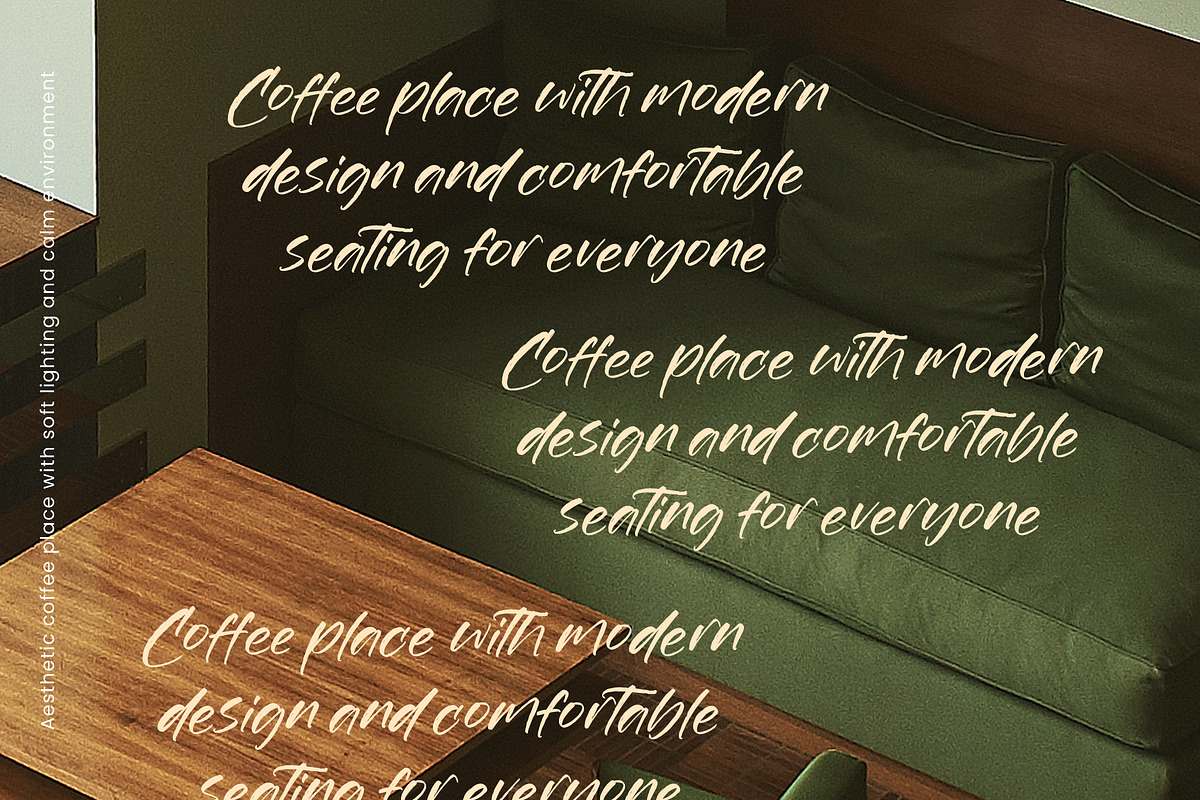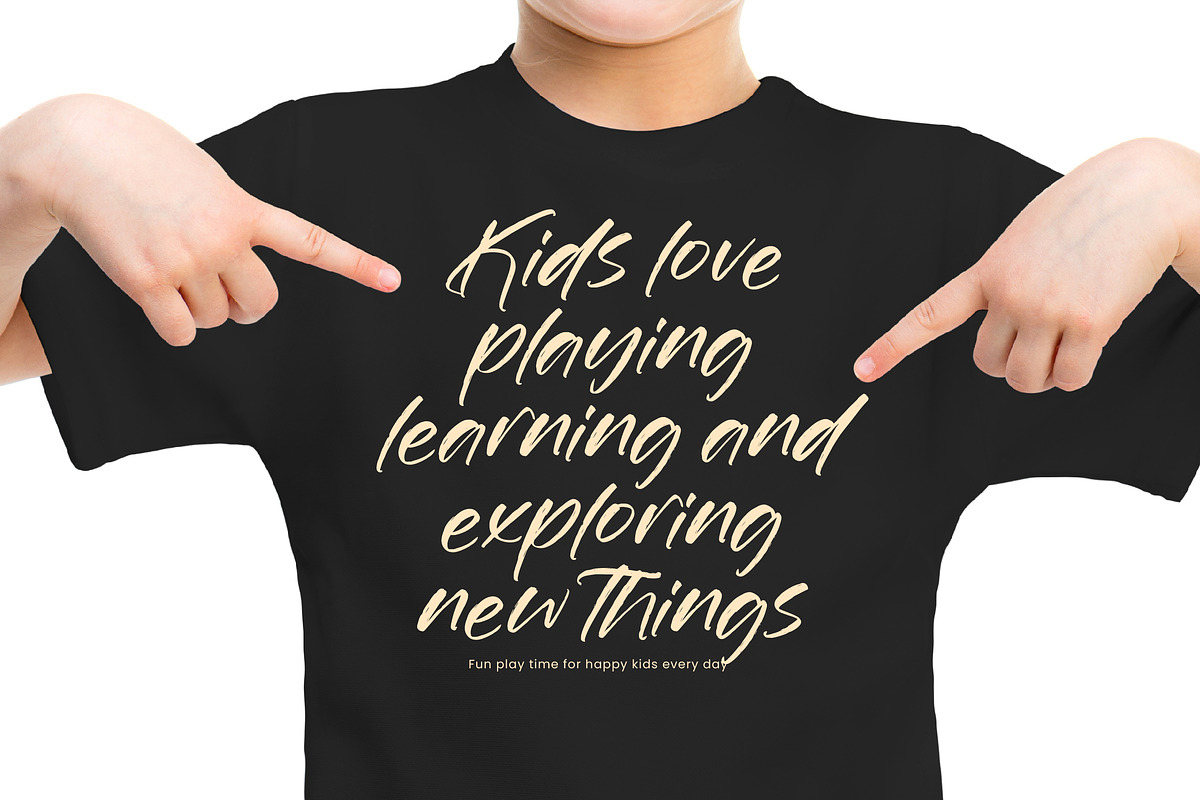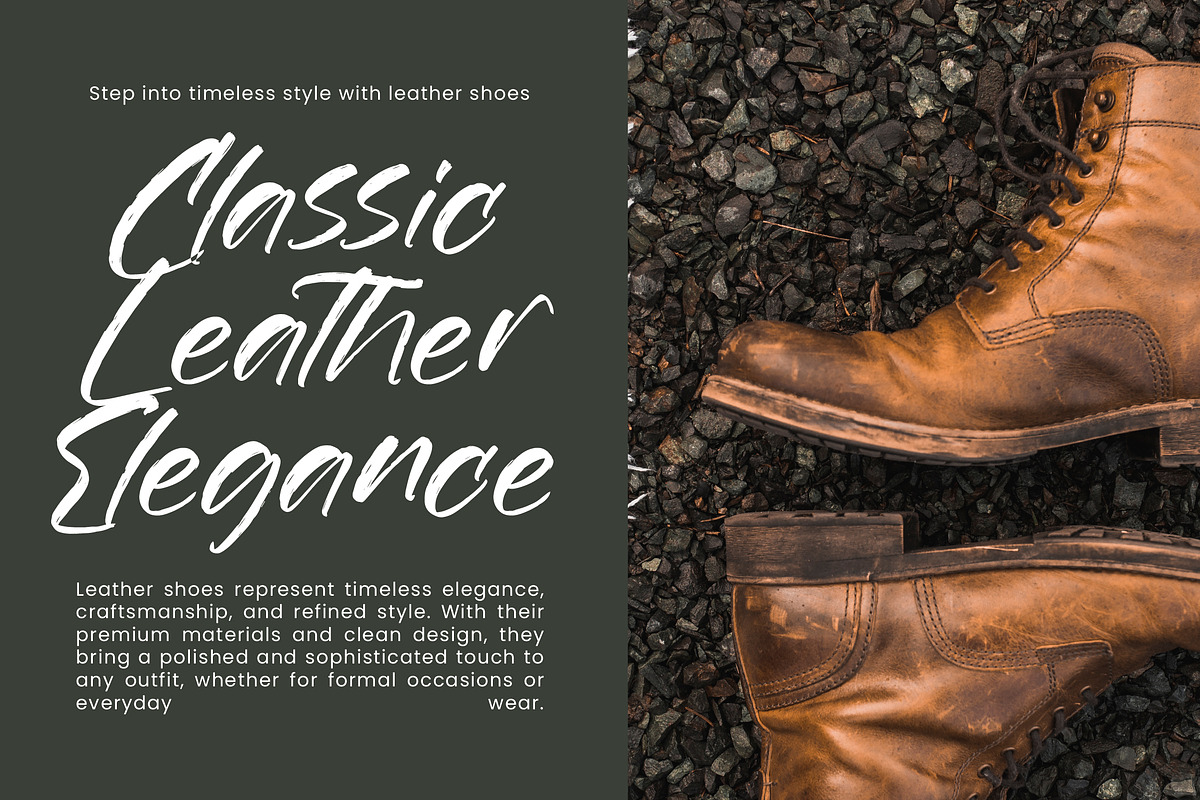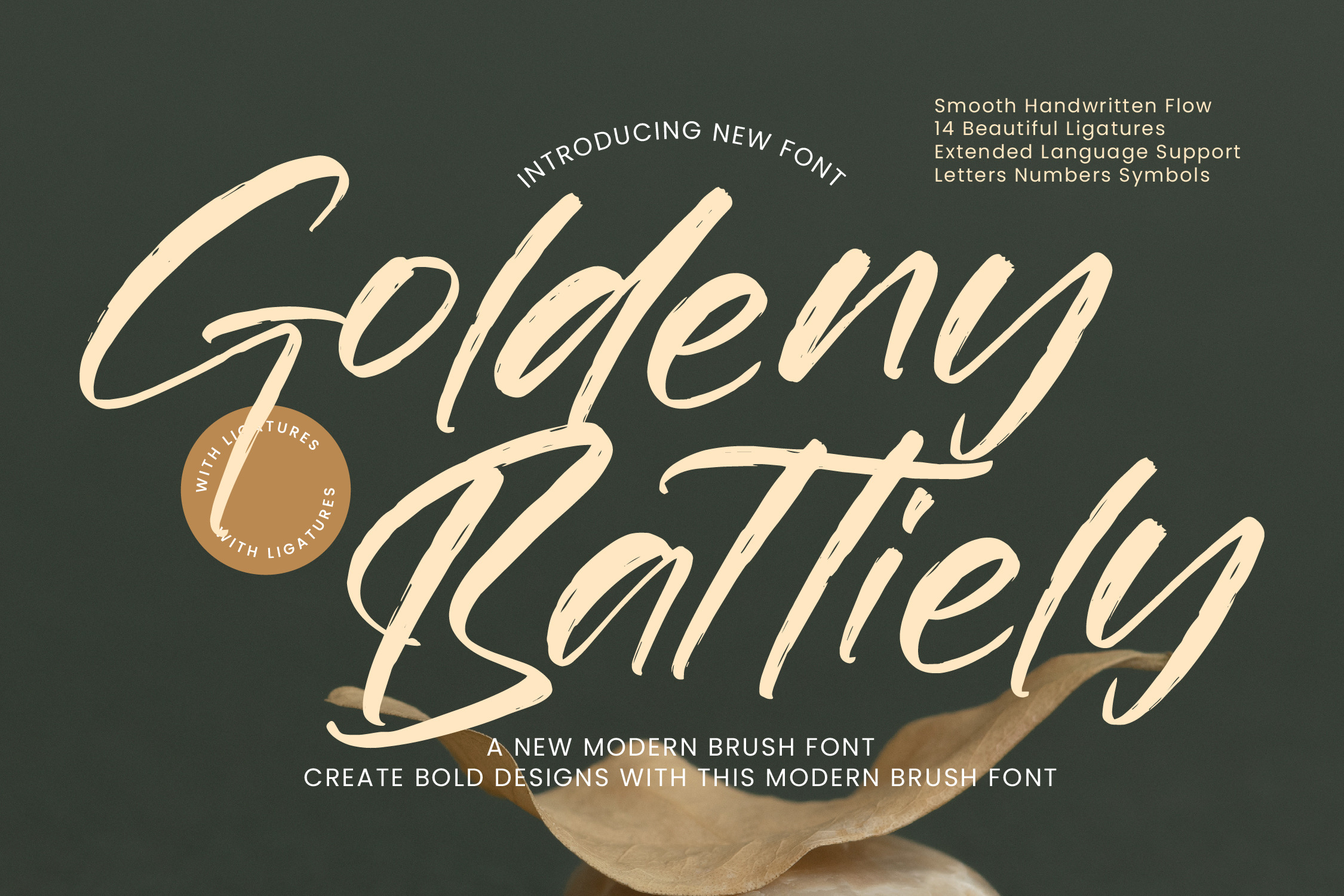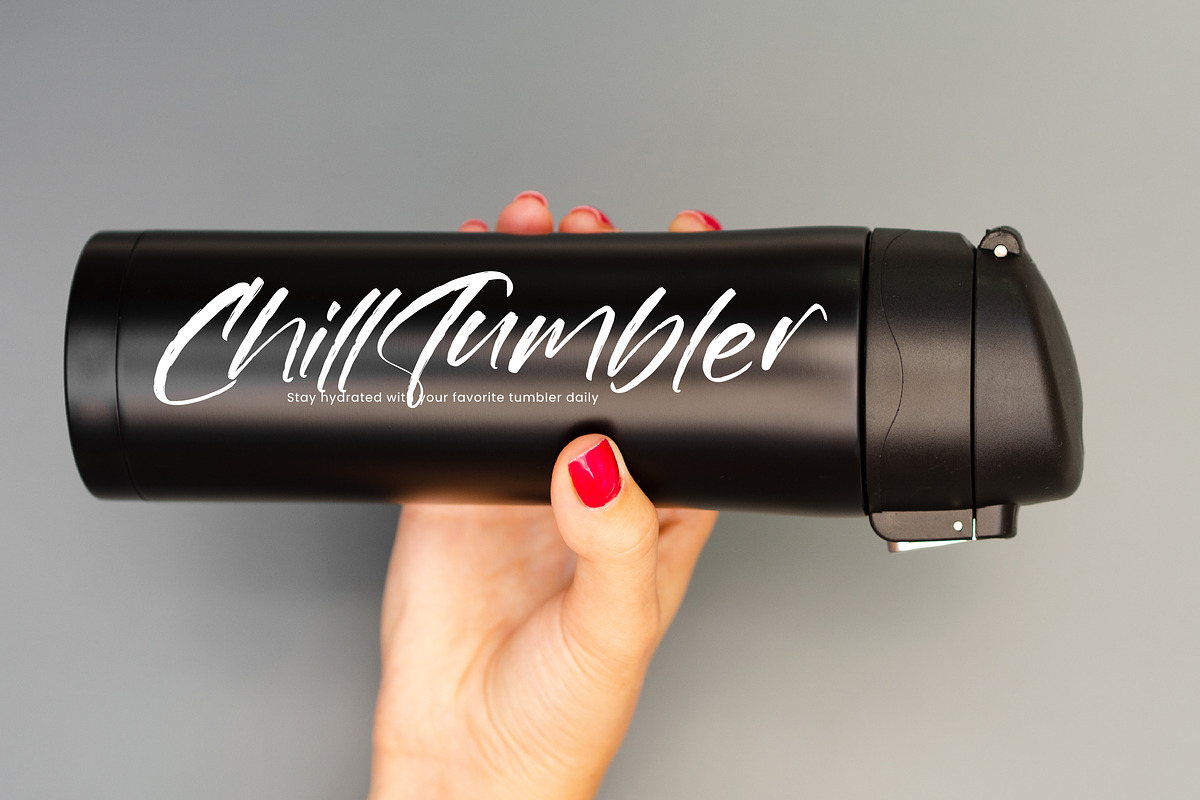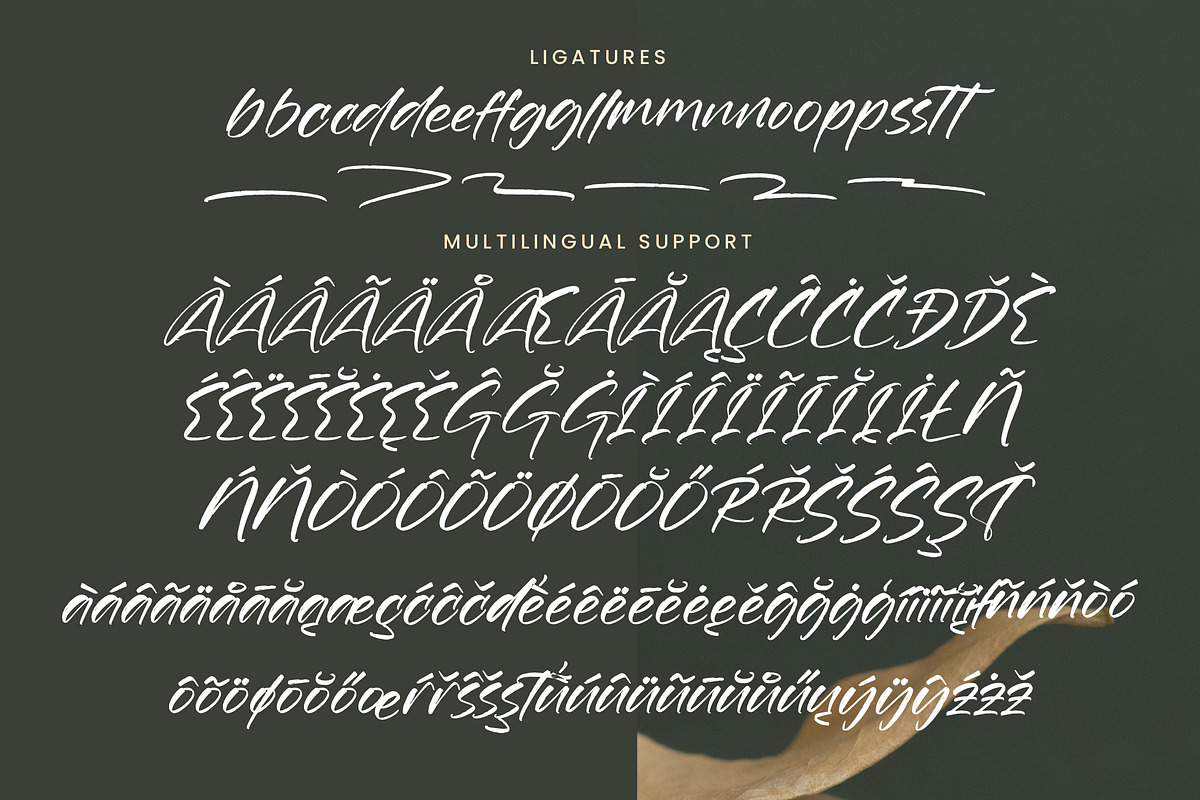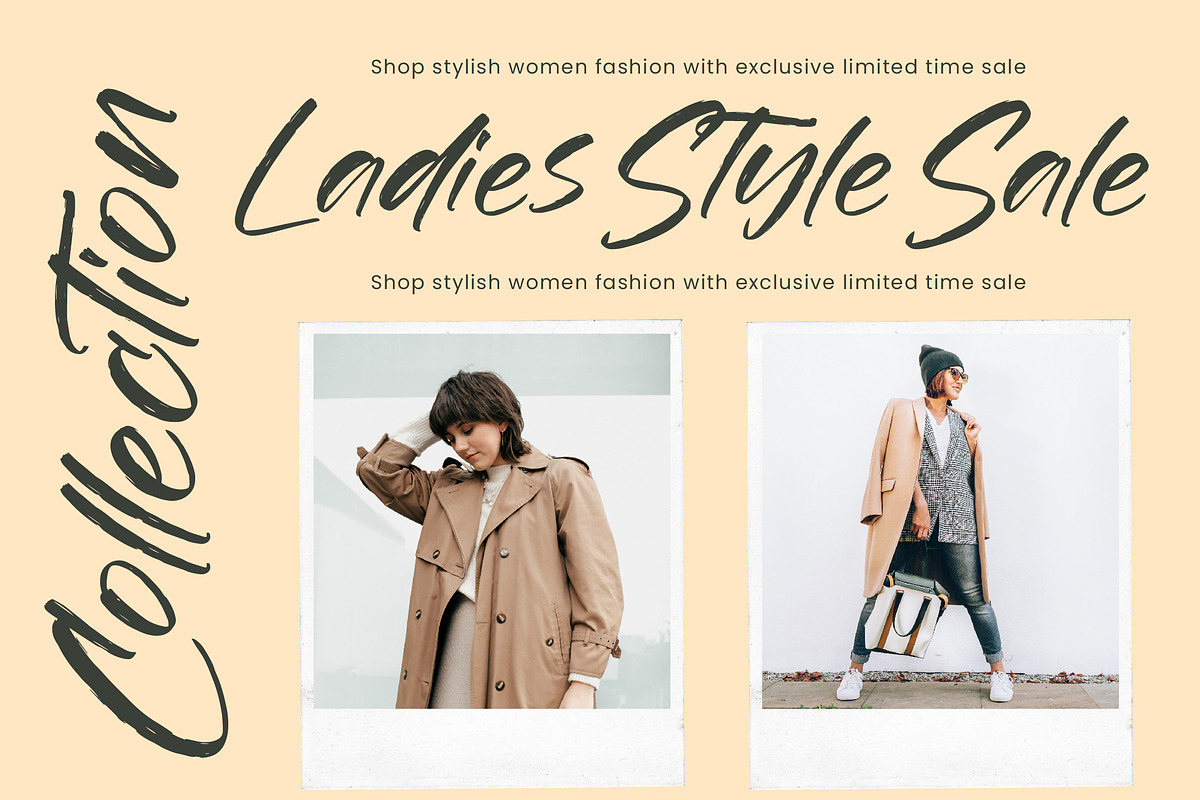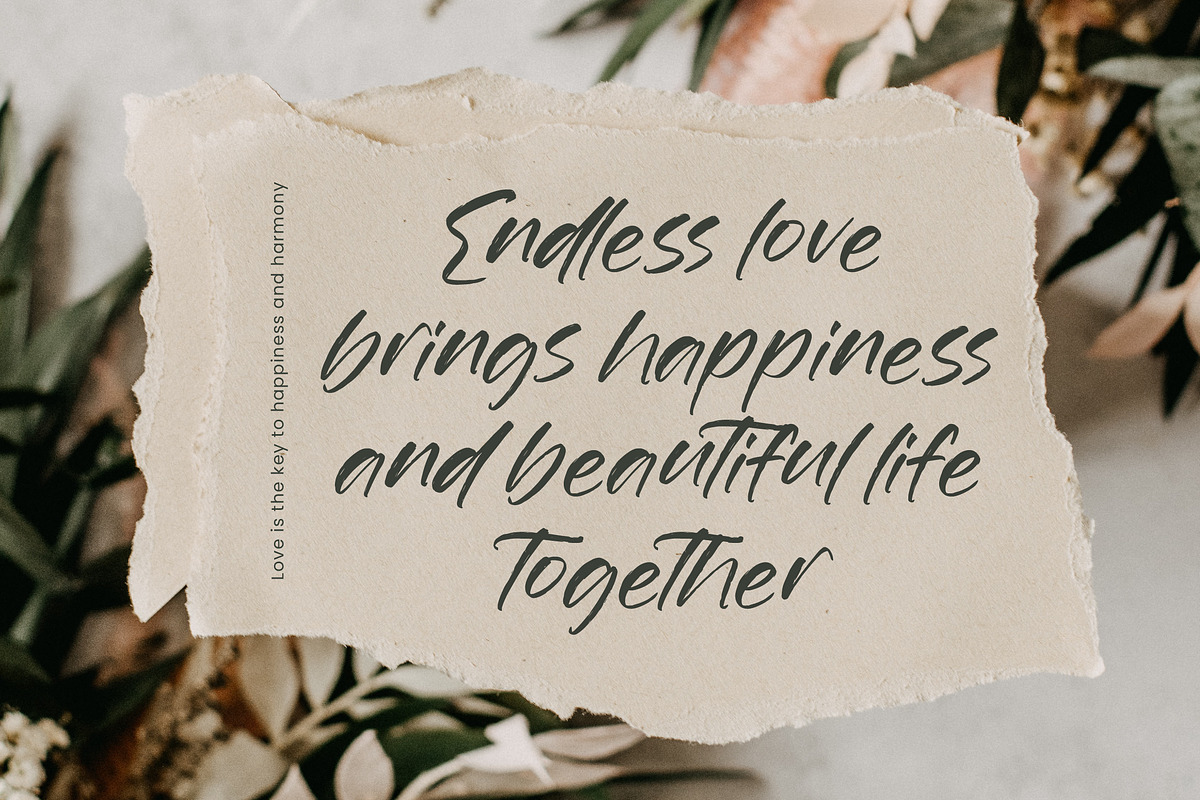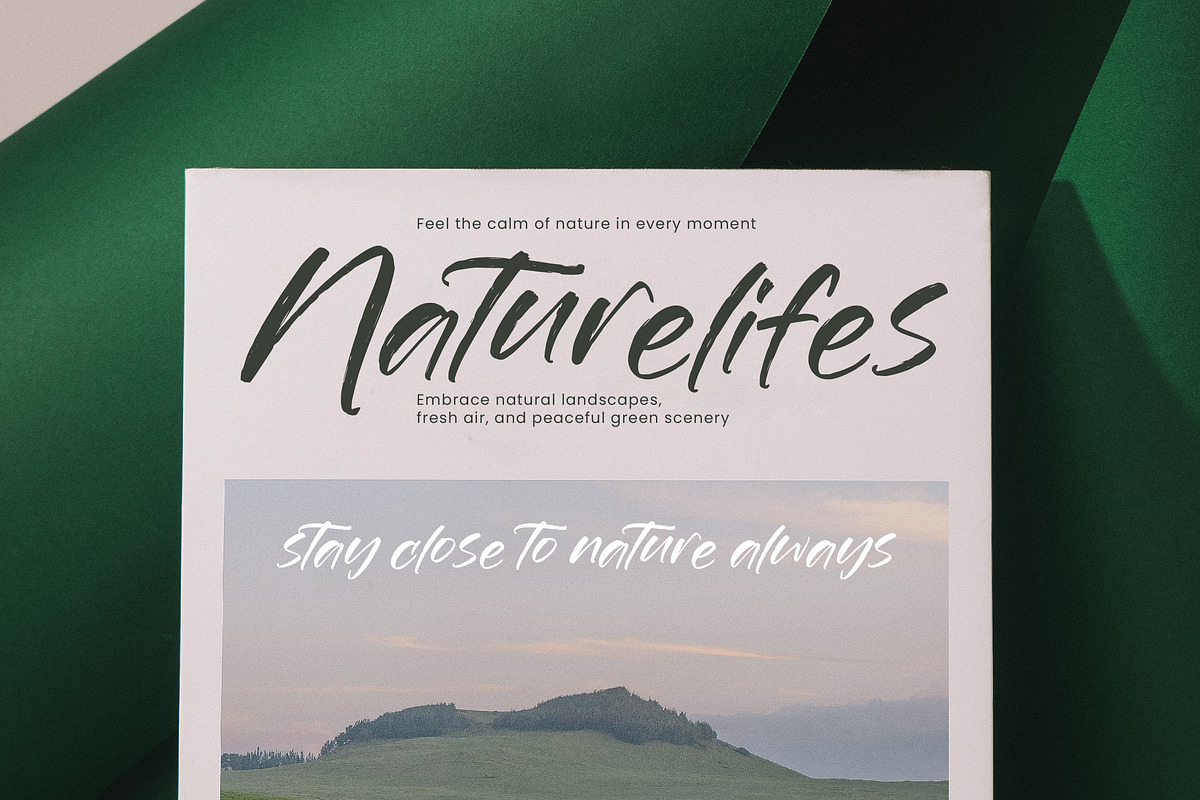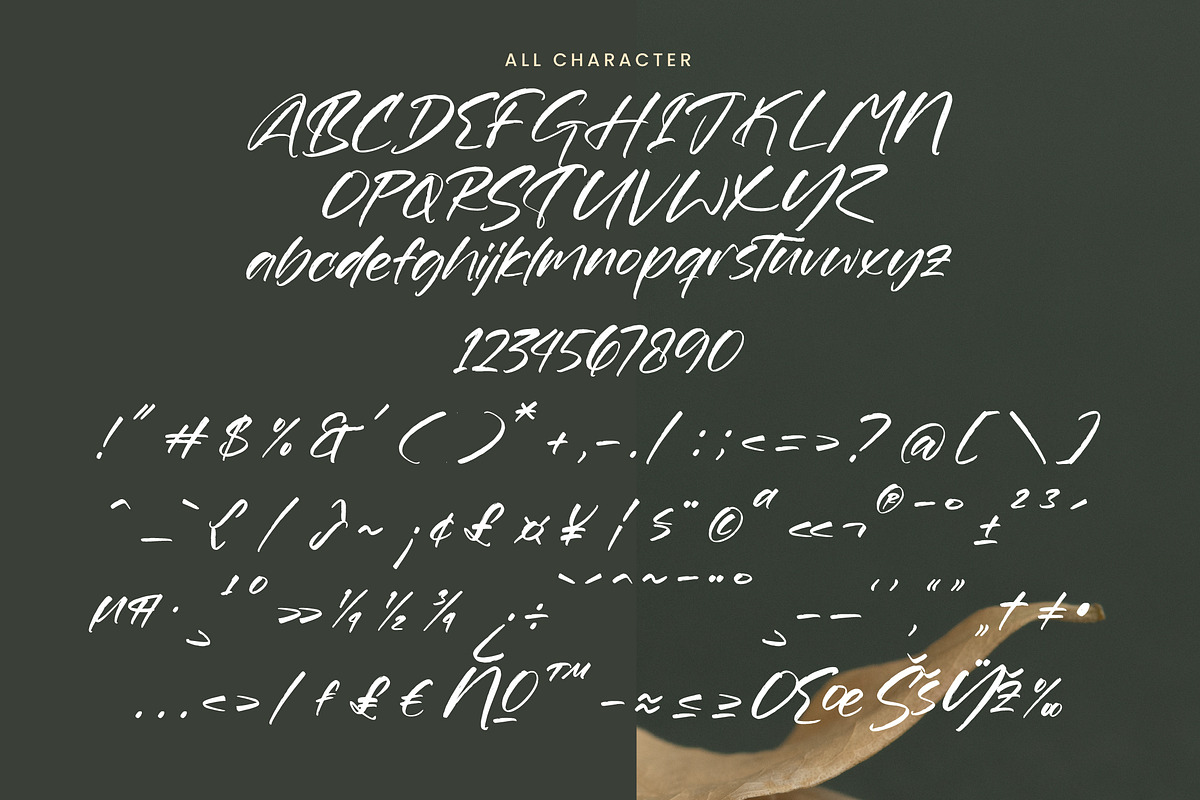
Goldeny Battiely Modern Brush Font
Goldeny Battiely – Modern Brush Font
Goldeny Battiely is a bold and expressive modern brush font designed to create strong and eye-catching visuals. With its natural brush strokes and dynamic movement, this font brings energy and character into every design.
Perfect for logos, branding, posters, packaging, apparel, social media, and any creative project that needs a powerful and artistic touch.